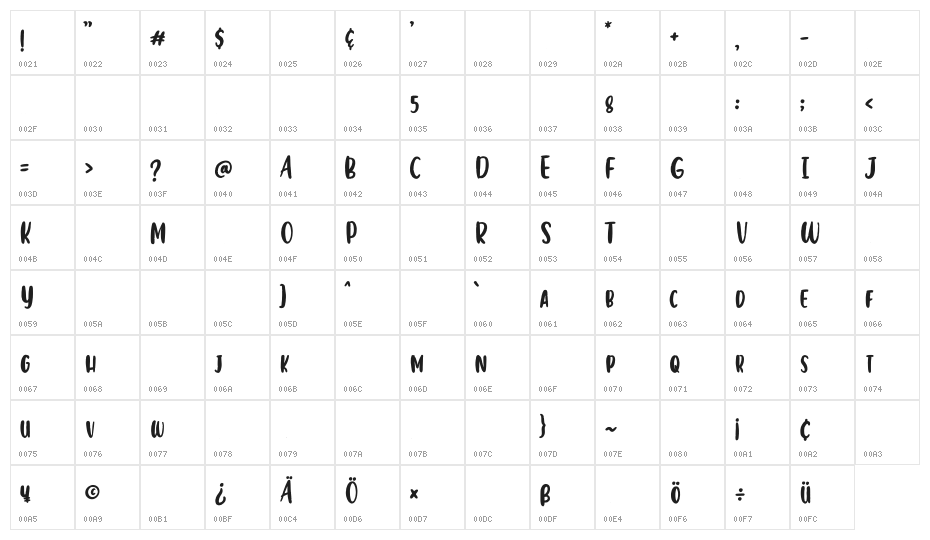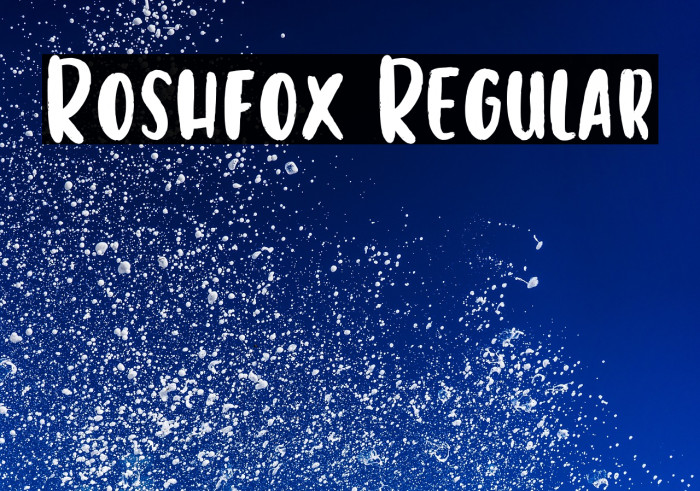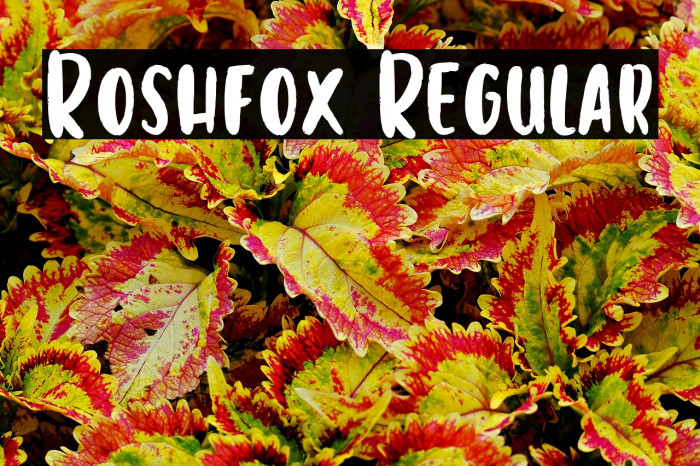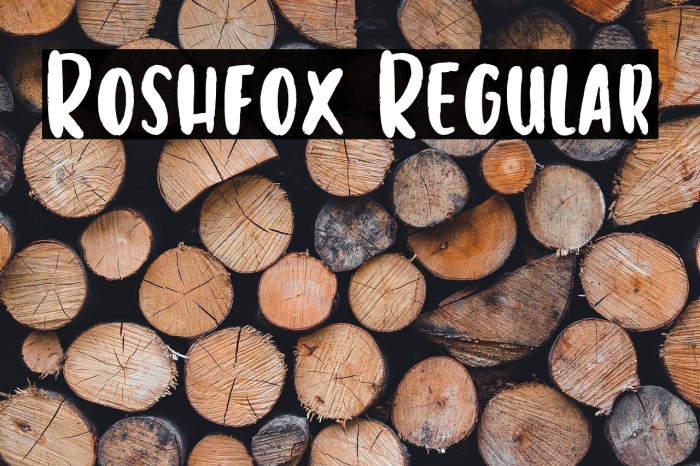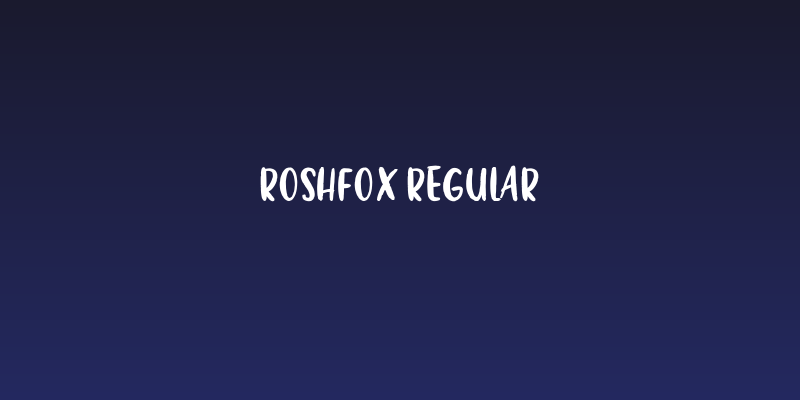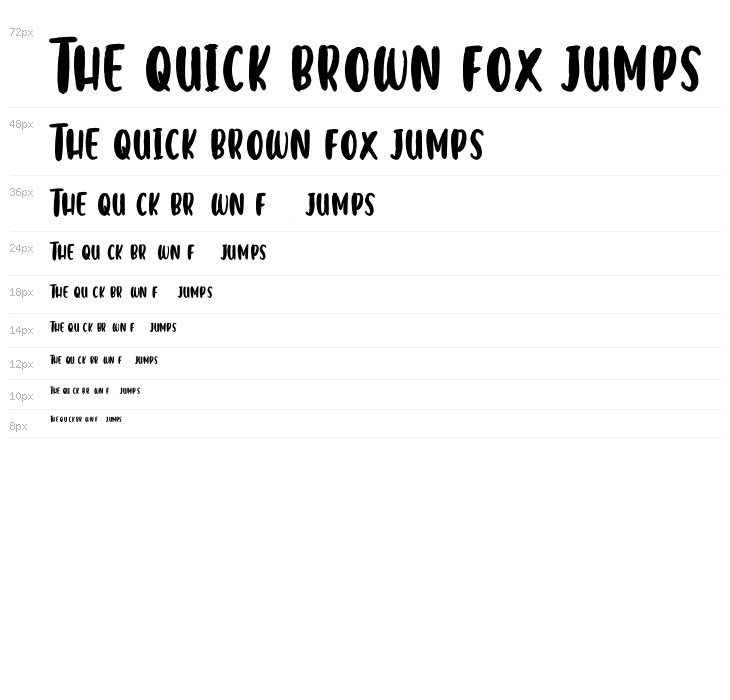
Roshfox Regular Font
Roshfox Regular Description
This font features a bold and expressive handwritten style, characterized by its thick strokes and playful curves. The uppercase and lowercase letters maintain a consistent weight, giving it a cohesive look. The numbers and special characters are designed with the same boldness, ensuring readability and style uniformity. The font's overall appearance is casual yet impactful, making it suitable for projects that require a personal touch. Its brush-like texture adds a dynamic and energetic feel, perfect for creative and artistic designs.
| Proposed Projects | Ideal for branding, posters, social media graphics, and invitations where a personal and artistic touch is desired. |